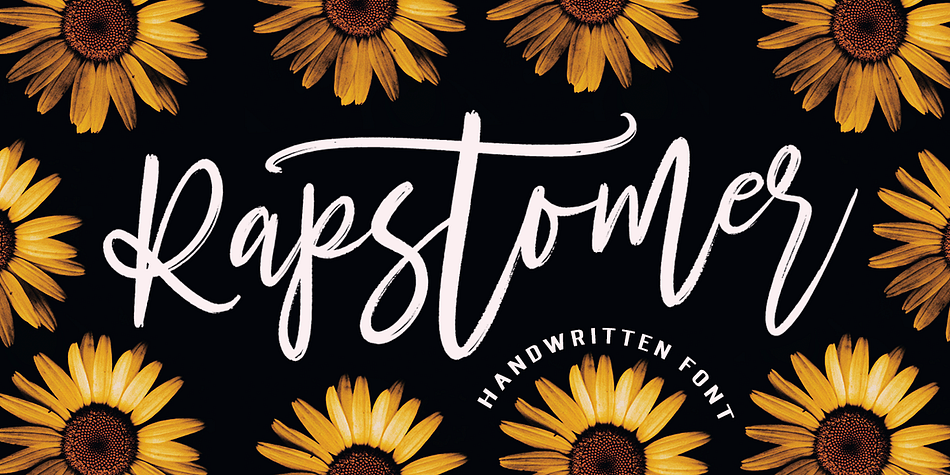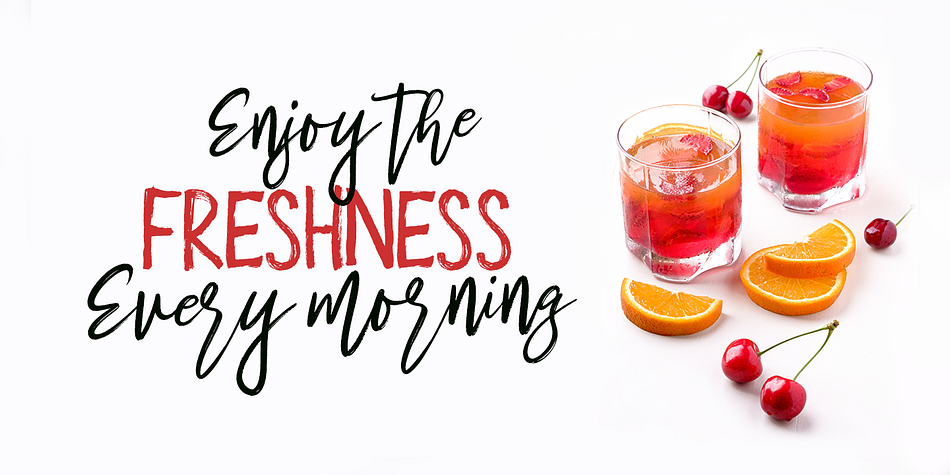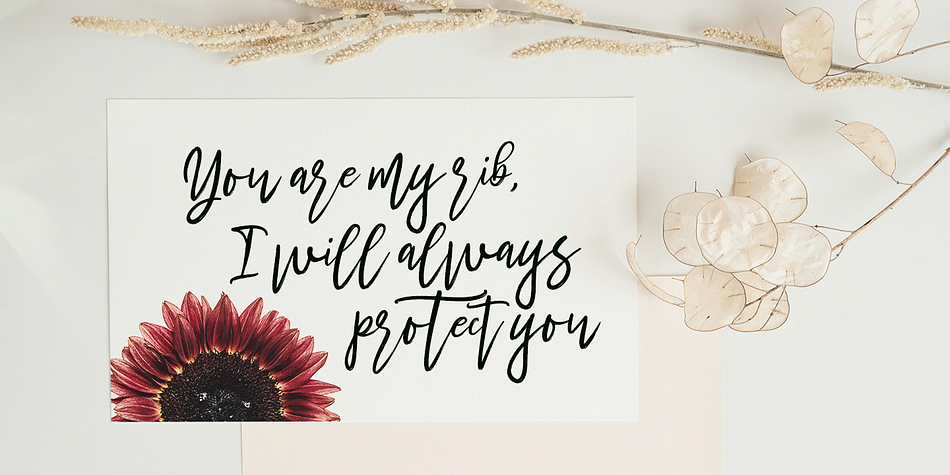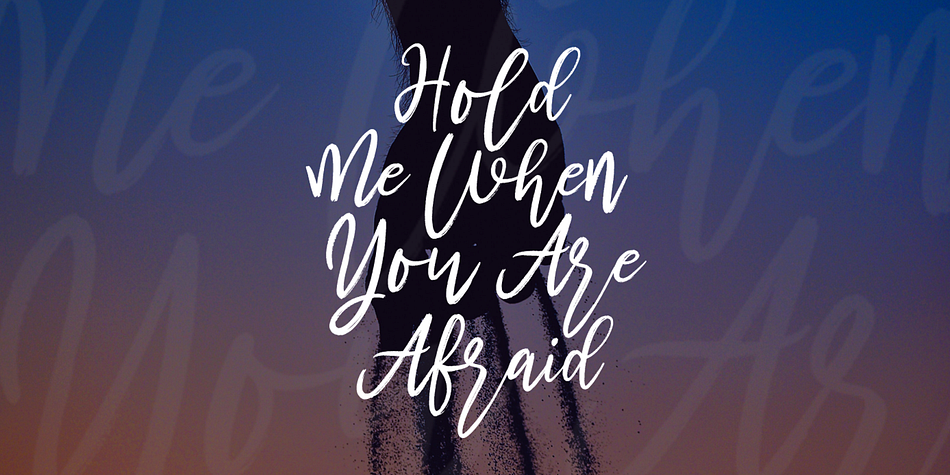
Rapstomer is a modern calligraphy and script font published by Dhan Studio.
Rapstomer is a modern brush font, organic, dynamic, and energetic.
It can be used for various purposes such as titles, signatures, logos, correspondence, letterheads, signage, labels, newsletters, posters, badges.
Rapstomer includes alternates letters, ligatures and International support for most of the included Western Languages.